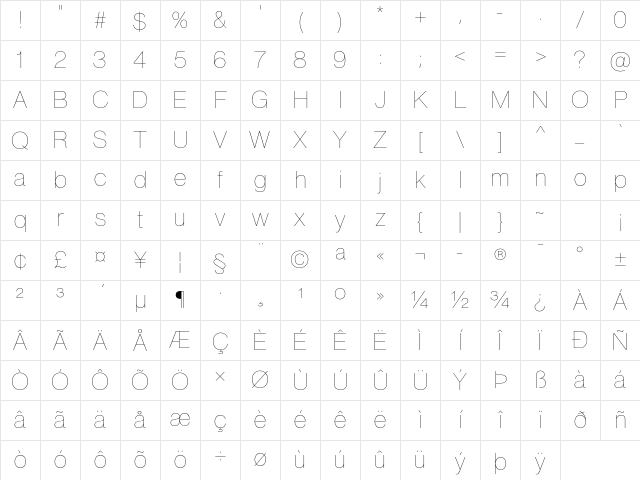
Complete Neue Haas Grotesk D W0415 Regular glyph index. Displaying only characters natively supported by Neue Haas Grotesk D W0415 Regular font.
Neue Haas Grotesk D W0415 takes a clean, functional approach - its unadorned letterforms prioritise legibility and work reliably across screen and print environments.
Font Pairing: Works well alongside a characterful serif or display font that can carry the expressive load while Neue Haas Grotesk D W0415 handles the functional copy.
Pro Tip: Use Neue Haas Grotesk D W0415 for UI labels, navigation, and short-form body copy where clean legibility is the priority.